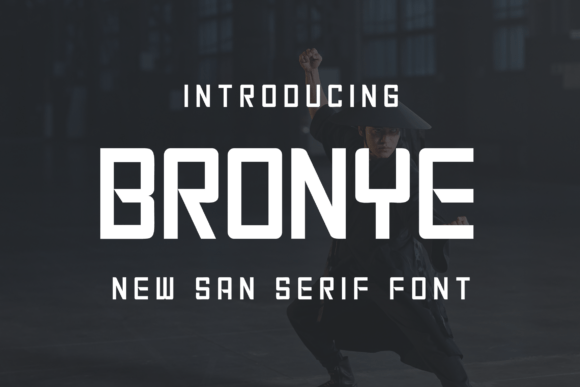
Discover the Perfect Blend of Simplicity and Sophistication with Bronye Font
Have you ever stared at a blank page, searching for the perfect font to bring your creative vision to life? You’re not alone. As designers, we’ve all been there – pouring over font libraries, testing out different styles, and tweaking until we find the perfect match. And that’s exactly what makes discovering a font like Bronye so exhilarating.
Bronye Font is a clean and contemporary sans serif font that’s designed to make your work shine. With its smooth curves, generous spacing, and balanced proportions, Bronye is the perfect choice for branding, editorial layouts, website headers, packaging, and creative presentations that need a touch of modern charm.
Bronye Font Key Features
- Size and Resolution: The font family includes a range of weights and styles, with each font available in a standard 1024-glyph set, suitable for most printing and digital applications.
- Unique Characteristics: Bronye Font features a unique blend of modern and traditional design elements, with a focus on legibility and readability in a variety of contexts.
- Font Style: The font family includes a range of styles, from casual and informal to formal and elegant, allowing users to choose the perfect tone for their content.
- Scalability: Bronye Font is designed to be highly scalable, ensuring that it looks great in a wide range of sizes and resolutions, from small text to large display headings.
Designer Review: Bronee Font
When I first started using the Bronee Font, I was struck by its unique and quirky charm. The distinctive letterforms ✨ truly set it apart from other fonts in its class, and I can see it being used to great effect in a variety of creative projects.
One of the things that works particularly well about Bronee is its versatility ✨. It’s a great choice for both digital and print projects, and its wide range of weights and styles make it easy to find the perfect fit for your design needs.
- ⚠️ While Bronee is a great choice for creative projects, it may not be the best choice for more formal or traditional designs.
- ⚠️ The font may be a bit too quirky for some audiences, so be sure to test it thoroughly before committing to a design.
- ⚠️ Some users have reported issues with the font’s kerning and spacing, particularly at smaller font sizes.
Overall, I’m impressed by the Bronee Font’s unique style and versatility. While it may have some limitations, I think it’s a great choice for designers looking to add some personality to their projects.
Practical Application Guide for Bronye Font
For the best results, use the Bronye Font for titles and headings to add a touch of elegance to your design.
For the best results, use the Bronye Font for titles, headings, and body text to create a cohesive and stylish design.
For the best results, use the Bronye Font for titles, headings, and body text to add a touch of sophistication to your presentation or document.
The Bronye Font is ideal for:
- Brand logos and identity design
Remember to use the Bronye Font in conjunction with other design elements to create a cohesive and stylish design.
The recommended line height for Bronye Font is 1.2-1.5 times the font size. This provides sufficient spacing between lines of text, ensuring that the font remains readable and visually appealing in digital designs.
Is Bronye Font optimized for digital use, such as on websites and mobile apps?
Yes, Bronye Font is specifically designed for digital use and is optimized for various screen resolutions and devices. It features clear and crisp text rendering, making it suitable for use in websites, mobile apps, and other digital applications.